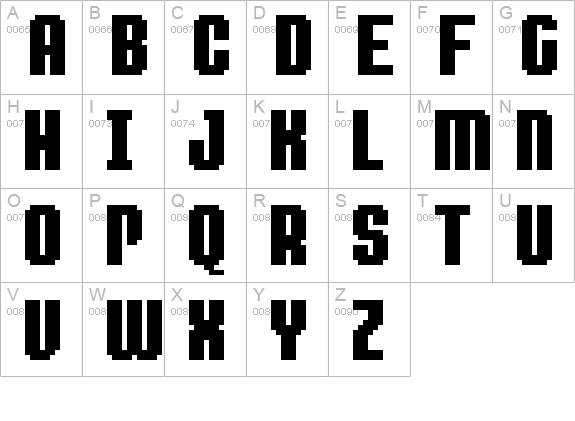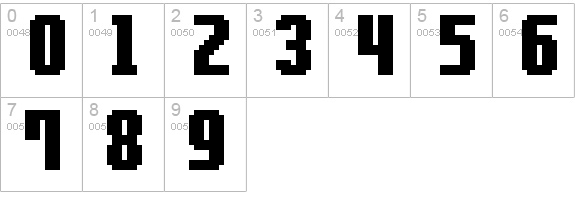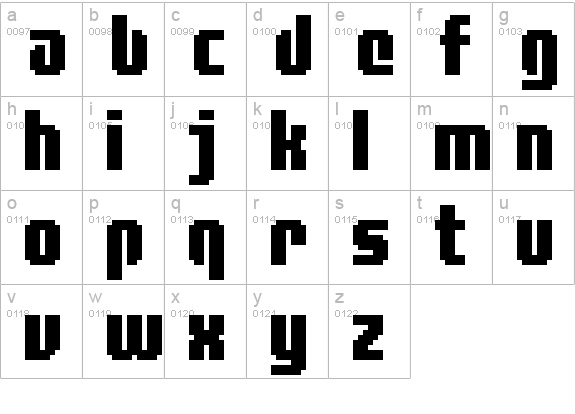
FFF Spacedust Font Details
Introducing FFF Spacedust font, a whimsical and playful typeface that will bring a touch of magic to your designs. Inspired by the enchanting beauty of outer space, this font features unique and futuristic characters that will make your projects stand out. FFF Spacedust font is perfect for a variety of creative projects, from posters and flyers to branding and packaging. Its bold and eye-catching style will grab the attention of your audience and leave a lasting impression. The best part? FFF Spacedust font is completely free to download at FontsMarket.com. Simply head over to the website and add this stunning font to your collection today. Let your creativity soar with FFF Spacedust font and bring a touch of cosmic charm to your designs.